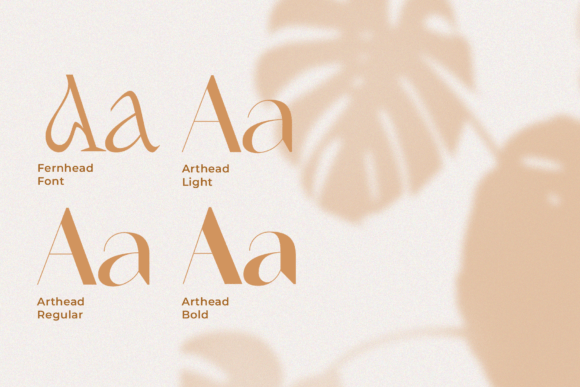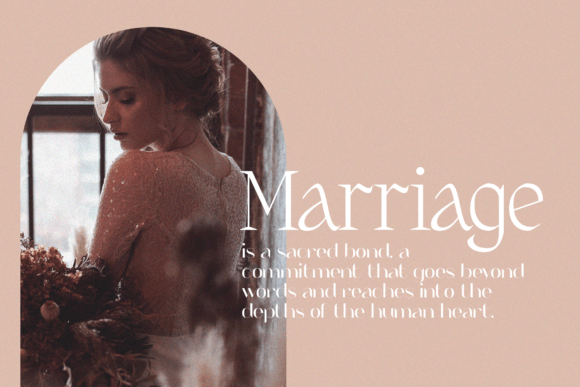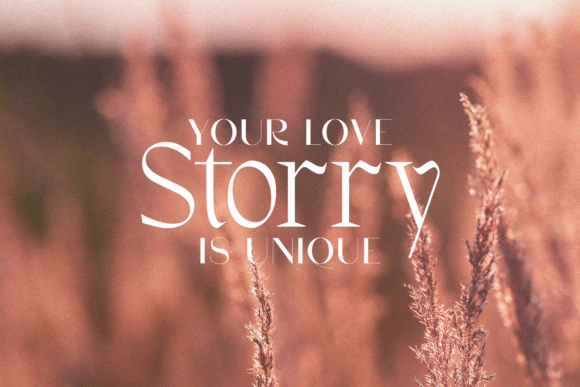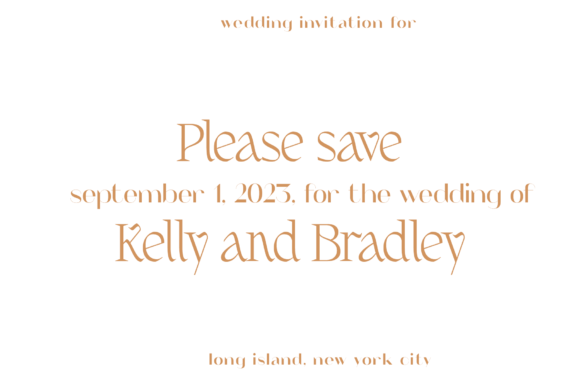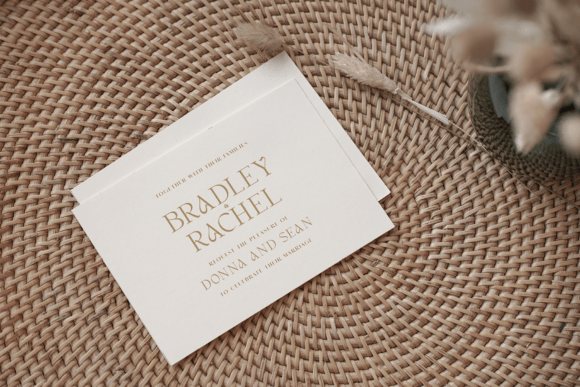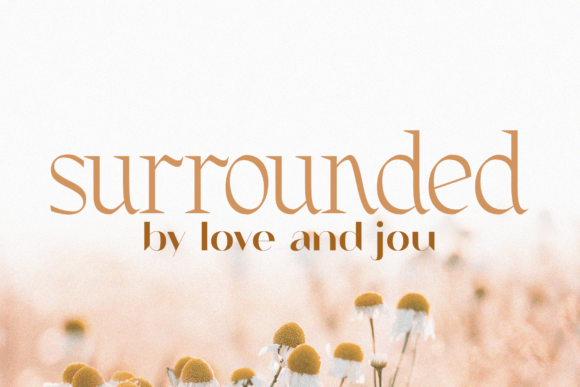
Introducing The Dreamy Wedding Font Duo: Elevate Your Wedding Designs
Are you searching for the perfect font duo to make your wedding designs truly unforgettable? Look no further! The Dreamy Wedding Font Duo, consisting of Fernhead and Arthead, is here to revolutionize your wedding-related creations. This romantic pairing is specifically designed to capture the essence of a beautiful wedding, exuding elegance, charm, and a touch of modern flair.
Fernhead: The Elegant Serif Font
Fernhead, an elegant serif font, is the epitome of sophistication and refinement. Adorned with delicate decorative elements and organic curves, this font is sure to add a touch of luxury to your wedding designs. Its nonconformist design and handcrafted feel make it stand out from the crowd, following the fluid movements of a pen to create a truly unique and captivating look.
Fernhead’s classic design makes it perfect for wedding invitations, ceremony programs, and other formal wedding materials. Its elegant and refined appearance will add a touch of sophistication to your designs, making them truly unforgettable.
Arthead: The Modern Sans-Serif Font
Arthead, on the other hand, is a modern sans-serif font with a subtle touch of decoration. Its minimal structure and curved shapes add a contemporary look to the pairing, complementing Fernhead perfectly and creating a harmonious blend of beauty and style.
Arthead’s modern design makes it ideal for wedding websites, social media graphics, and other modern wedding materials. Its clean and crisp appearance will add a touch of freshness to your designs, making them stand out in a crowded digital landscape.
The Dreamy Wedding Font Duo: A Match Made in Heaven
The Dreamy Wedding Font Duo combines the elegance of Fernhead with the modern flair of Arthead, creating a visual harmony that is both dreamy and modern. These fonts are specifically crafted to add a delicate touch to your wedding-related designs, allowing you to create captivating and unforgettable invitations, ceremony programs, wedding websites, and more.
Whether you’re a designer, crafter, or DIY enthusiast, this font duo is perfect for anyone looking to create beautiful and elegant wedding designs. The combination of Fernhead and Arthead offers endless possibilities for creative expression, making it easy to bring your wedding vision to life.
Why Choose The Dreamy Wedding Font Duo?
So, why choose The Dreamy Wedding Font Duo for your wedding designs? Here are just a few reasons:
- Elegant and modern combination: The pairing of Fernhead and Arthead offers a unique blend of elegance and modernity, making it perfect for wedding designs.
- Delicate and refined: Fernhead’s elegant serif design and Arthead’s subtle decoration make this font duo perfect for creating delicate and refined wedding designs.
- Versatile and flexible: The Dreamy Wedding Font Duo can be used for a wide range of wedding materials, from invitations and ceremony programs to wedding websites and social media graphics.
Get Ready to Elevate Your Wedding Designs
With The Dreamy Wedding Font Duo, you’re just a step away from creating stunning and unforgettable wedding designs. Whether you’re a seasoned designer or a DIY enthusiast, this font duo is sure to inspire your creativity and help you bring your wedding vision to life.